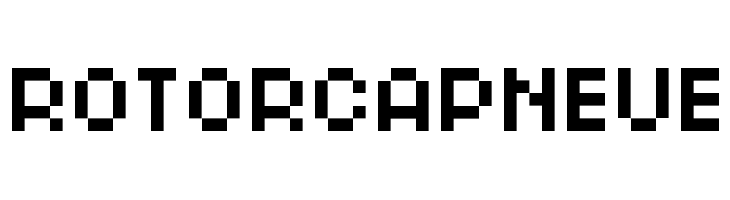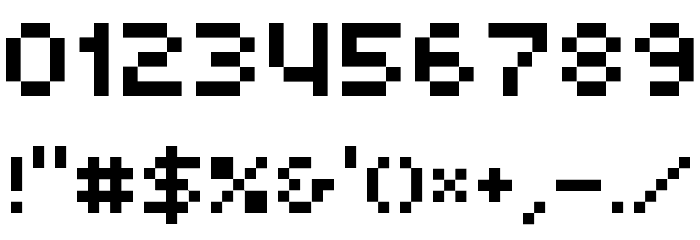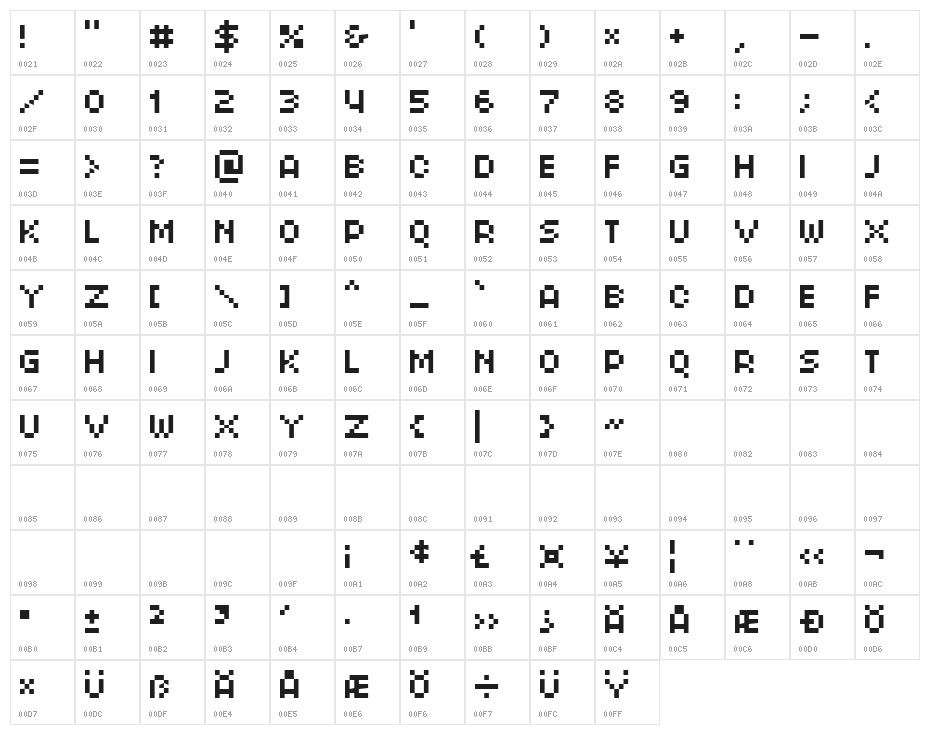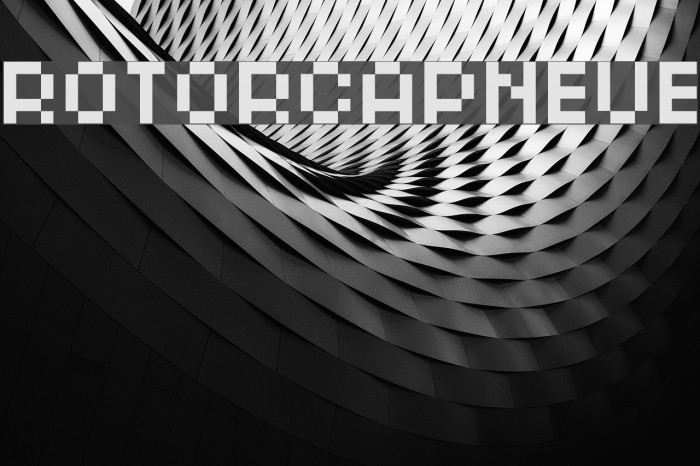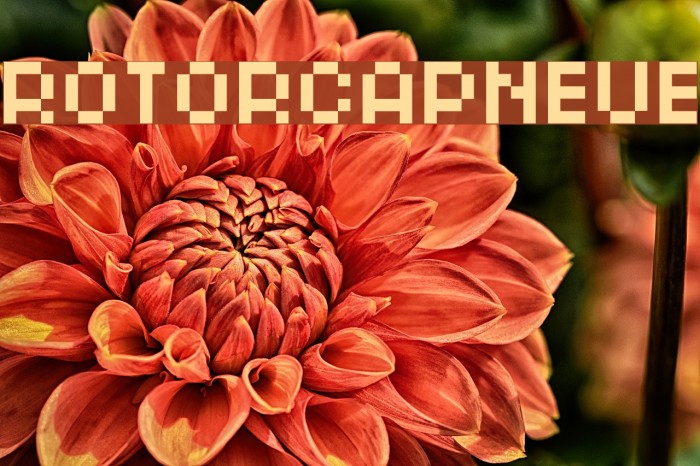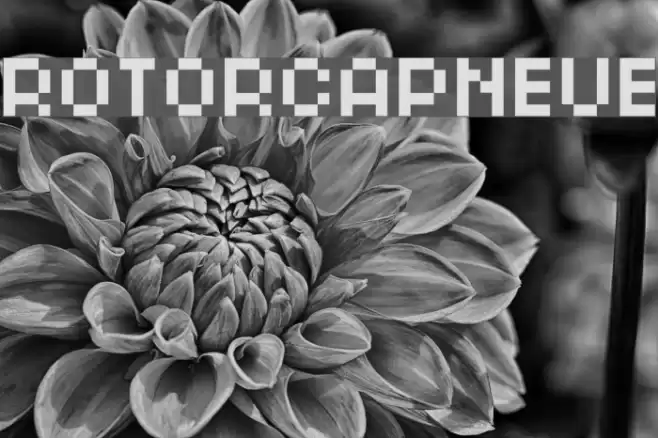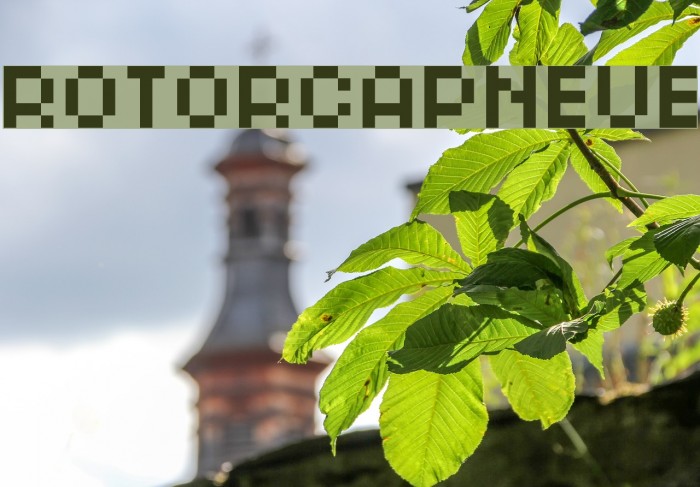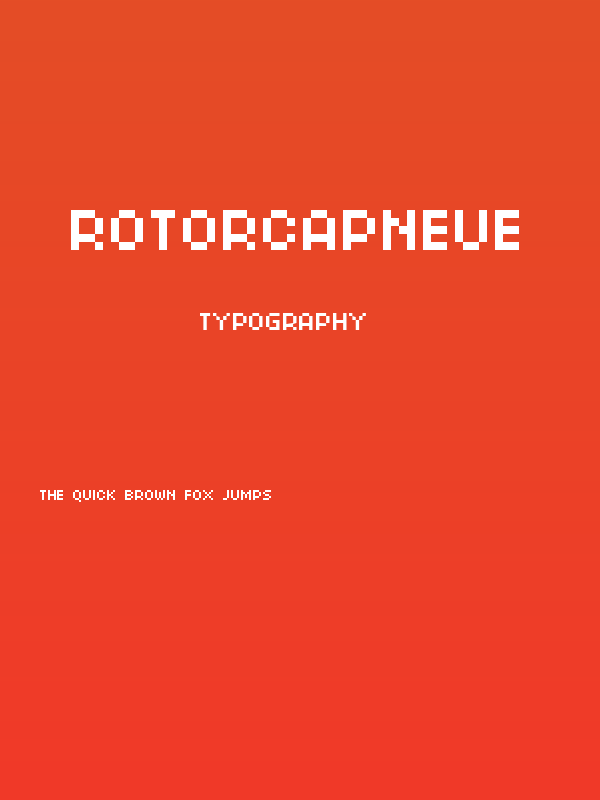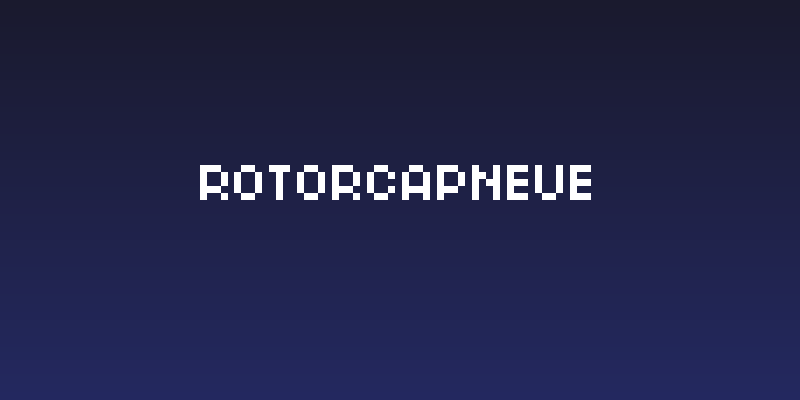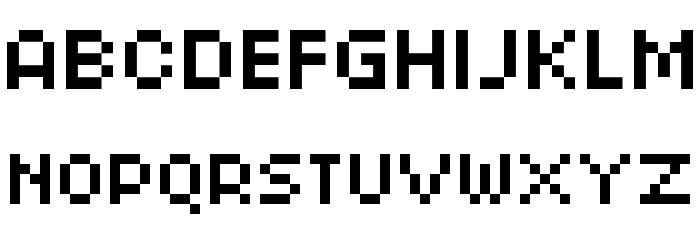
ROTORcapNeue Font
ROTORcapNeue Description
This font features a bold, blocky design with a pixelated appearance reminiscent of early digital displays or retro video games. Each character is constructed with a uniform grid-like structure, giving it a distinctly geometric and modern feel. The uppercase and lowercase letters maintain a consistent height, contributing to a monospaced look, although the font is not strictly monospaced. The numbers and special characters follow the same pixelated style, ensuring visual coherence across all elements. This font's unique style makes it stand out, offering a nostalgic yet contemporary aesthetic.
| Overall Style | Retro, Modern |
| Use Case | Logos, Headlines, Digital Art |
| Proposed Projects | Ideal for video game design, digital art projects, retro-themed branding, or any creative work seeking a nostalgic digital look. |